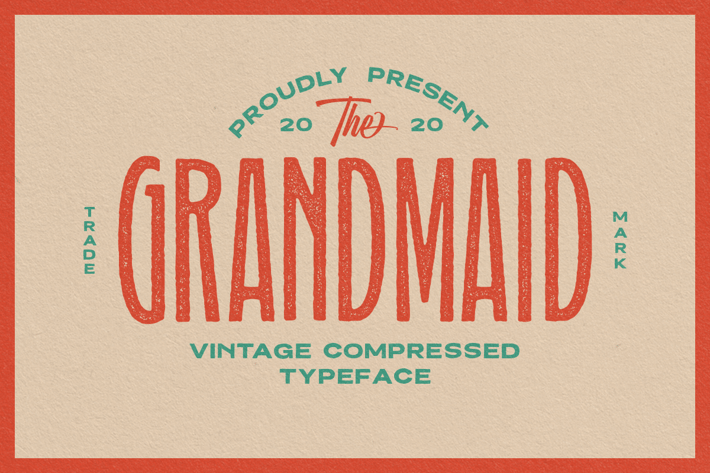
Grandmaid Condensed Typeface
GRANDMAID COMPRESSED TYPEFACE
Compressed = More than condensed.
Grandmaid is a family Sans Serif font designed with carefully handcrafted. Also suitable for branding, T-shirt, Classic Design, Logotype, and any project. Comes with a tons of ligature and alternates make your life more than comofortable, easier to design and free stress.
Grandmaid Regular
Grandmaid Rounded
Grandmaid Rough
* Grandmaid Stamp